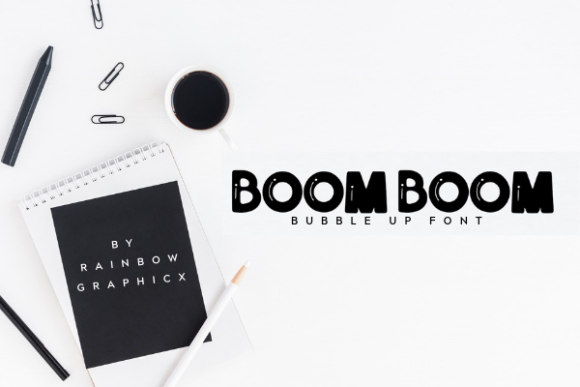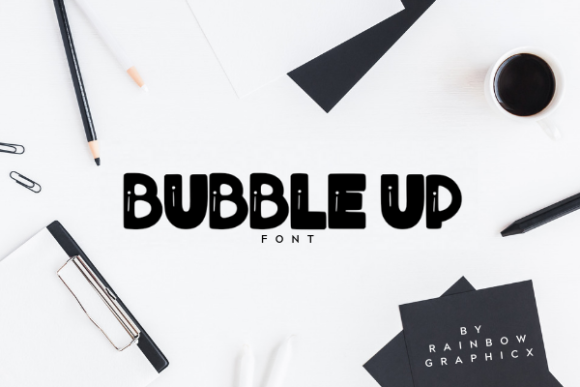
Bubble Up
Bubble Up: A Bold and Bubbly All-Caps Slab Serif Font
Bubble Up is a distinctive slab serif font that combines bold design with playful, bubbly characters. This all-caps typeface offers designers a fun and eye-catching tool for creating impactful typography across a wide range of creative projects.
Key Features of Bubble Up
• All-Caps Design: Features uppercase letters only, perfect for eye-catching headlines and titles
• Bold Appearance: Incorporates thick, substantial letterforms for maximum visual impact
• Bubbly Characters: Offers a playful, rounded aesthetic that adds a fun element to designs
• Slab Serif Structure: Maintains the characteristic thick, rectangular serifs typical of slab serif fonts
• Versatile Application: Suitable for a variety of creative projects
Ideal Uses for Bubble Up
Bubble Up’s unique characteristics make it particularly well-suited for:
• Playful branding and logo design
• Children’s book covers and illustrations
• Fun poster and advertisement layouts
• Cheerful packaging design
• Engaging social media graphics
• Party invitations and event materials
When incorporating Bubble Up into your designs, consider the following tips:
• Use for short phrases or single words to maximize its bold, bubbly impact
• Experiment with different sizes to create hierarchy while maintaining readability
• Pair with simpler, sans-serif fonts for body text to create contrast
• Consider using it in projects where you want to convey a sense of fun and playfulness
Bubble Up is an excellent choice for designers looking to add a bold, bubbly, and fun all-caps slab serif to their typographic toolkit. Its playful design and versatility make it stand out in the world of typography. Whether you’re working on logo designs, creating layouts for children’s books, or developing branding for fun and approachable projects, Bubble Up offers the perfect blend of boldness and playfulness.
Explore how Bubble Up can bring a bold and bubbly edge to your creative projects. From eye-catching headlines to fun branding elements, this font provides the tools to create impactful and memorable typography that stands out with its unique blend of boldness and playfulness.